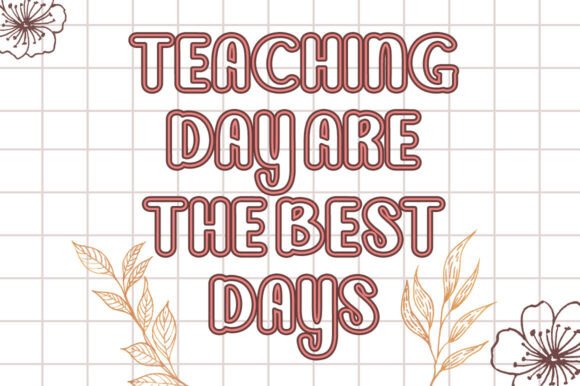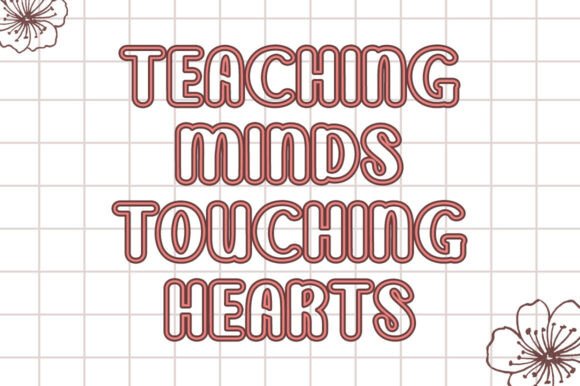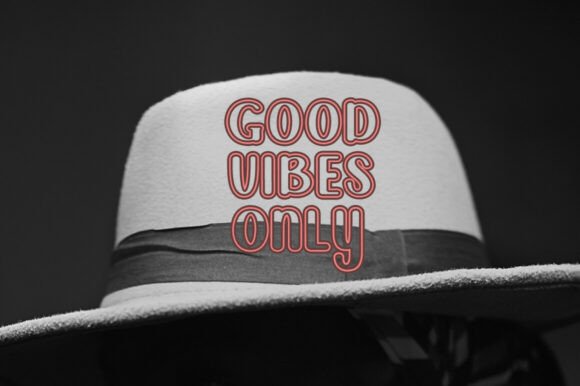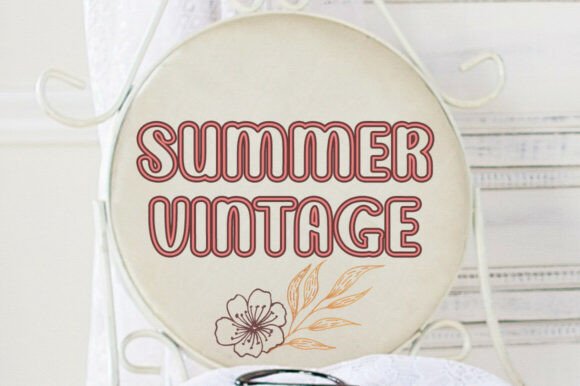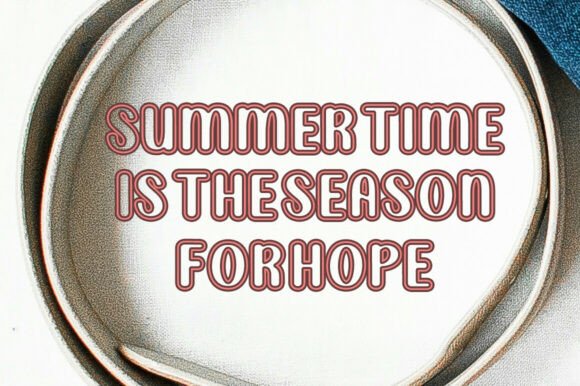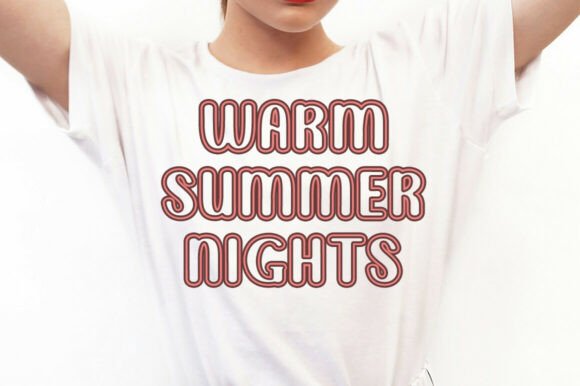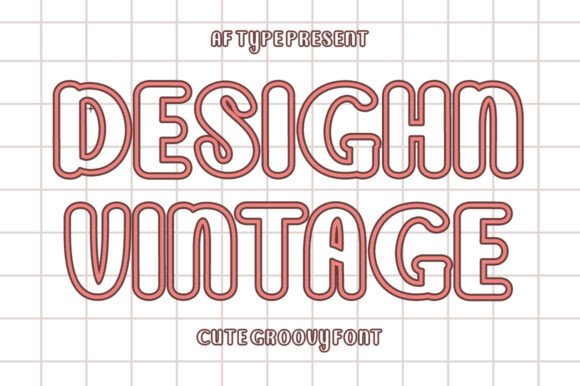
Introducing Design Vintage Font: Elevate Your Designs with a Modern and Bold Twist
In the world of design, fonts play a crucial role in conveying the message and aesthetic of a project. For designers and crafters looking to add a touch of sophistication and modernity to their work, the Design Vintage font is an excellent choice. This versatile font boasts a modern and bold look, making it perfect for a wide range of applications, from logos and packaging designs to digital content and apparel.
What is Design Vintage Font?
Design Vintage is a thoughtfully crafted font that combines the elegance of vintage typography with the boldness of modern design. Its unique character set and sleek lines make it an ideal choice for designers seeking to create eye-catching and memorable designs. Whether you’re working on a branding project, crafting a logo, or designing a poster, Design Vintage font is sure to make your work stand out.
Key Features of Design Vintage Font
- Modern and Bold Look: Design Vintage font features a distinctive and contemporary design that adds a touch of sophistication to any project.
- Versatile: This font is suitable for a wide range of applications, including logos, stickers, packaging designs, Cricut projects, news editors, comics, brand identities, t-shirt or apparel industry, posters, magazines, books, YouTube, Instagram, websites, or any other creative design project.
- Easy to Use: Design Vintage font is ready to be used in any project, making it a convenient choice for designers and crafters.
Design Vintage font is an excellent choice for designers and crafters looking to elevate their work. Its modern and bold look makes it perfect for:
- Logo Design: Create a memorable and impactful logo that represents your brand’s identity.
- Packaging Design: Add a touch of sophistication to your packaging designs and make your products stand out.
- Digital Content: Use Design Vintage font to create engaging and visually appealing digital content, such as YouTube videos, Instagram posts, and website headers.
- Apparel Design: Create stunning t-shirt and apparel designs that are sure to grab attention.
Tips for Using Design Vintage Font
To get the most out of Design Vintage font, here are some tips to keep in mind:
- Experiment with Different Sizes: Design Vintage font looks great in various sizes, so don’t be afraid to experiment and find the perfect size for your project.
- Pair with Other Fonts: Combine Design Vintage font with other fonts to create a unique and visually appealing design.
- Use in Combination with Images: Use Design Vintage font in combination with images to add depth and interest to your design.
| Font Name | Design Vintage Font |
| Author | AF Type |
In conclusion, Design Vintage font is a versatile and modern font that is perfect for designers and crafters looking to elevate their work. Its bold and sophisticated design makes it suitable for a wide range of applications, from logos and packaging designs to digital content and apparel. With its ease of use and flexibility, Design Vintage font is an excellent choice for any creative project.